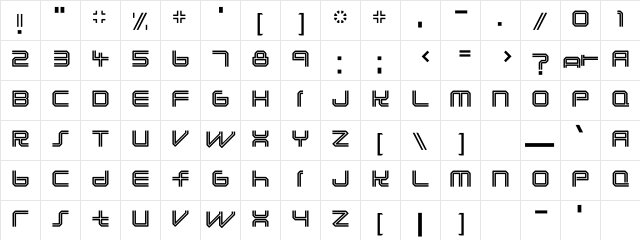
LunasolC Regular
Design Context for LunasolC Typeface
LunasolC is a composed and adaptable typeface that performs quietly and consistently across a wide range of design contexts.